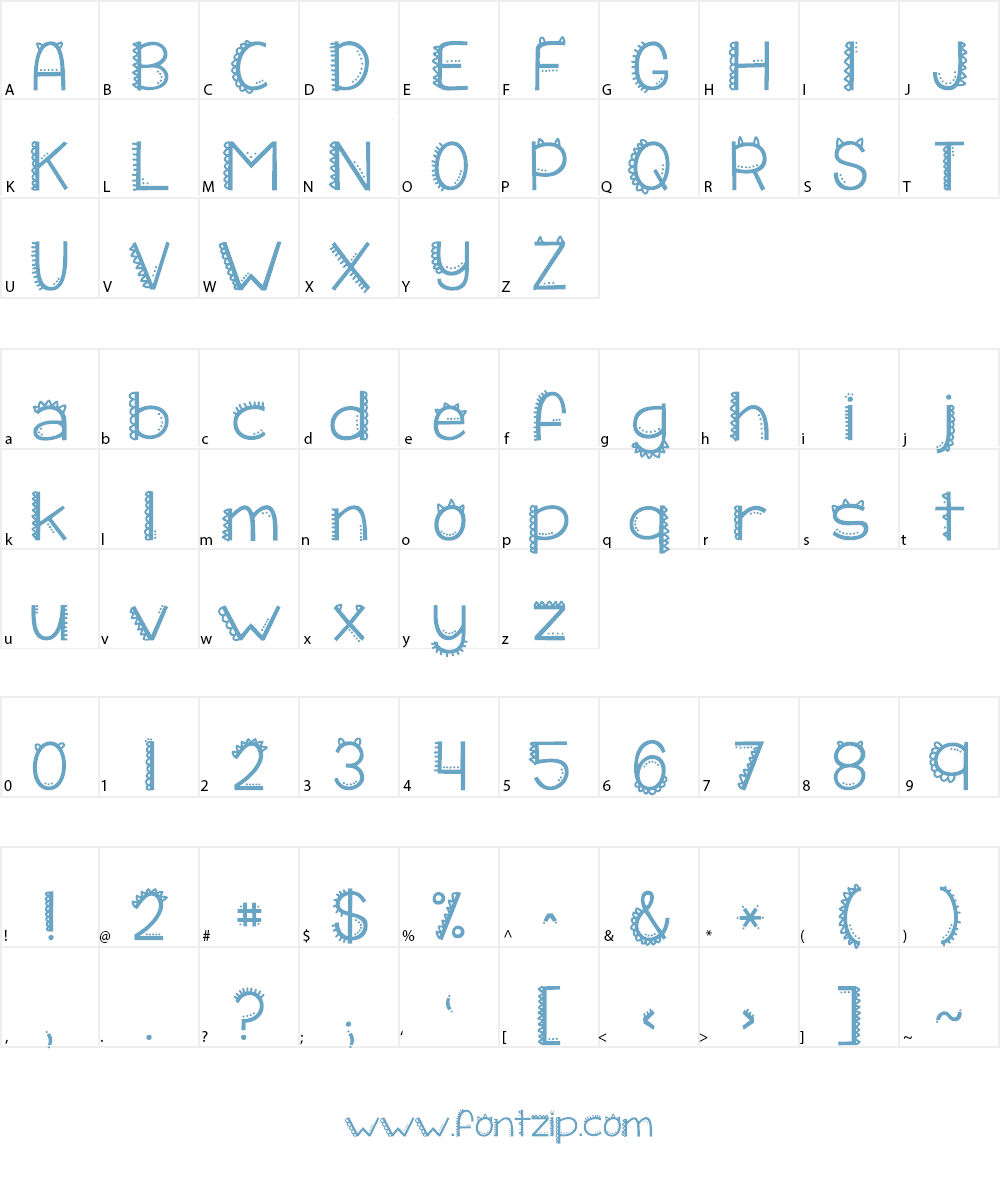
This font was dreamed up by my 8-year-old daughter. She had specific requirements for what she wanted in her funky, decorated font. She is the dancer in our family, so it is named appropriately for her.